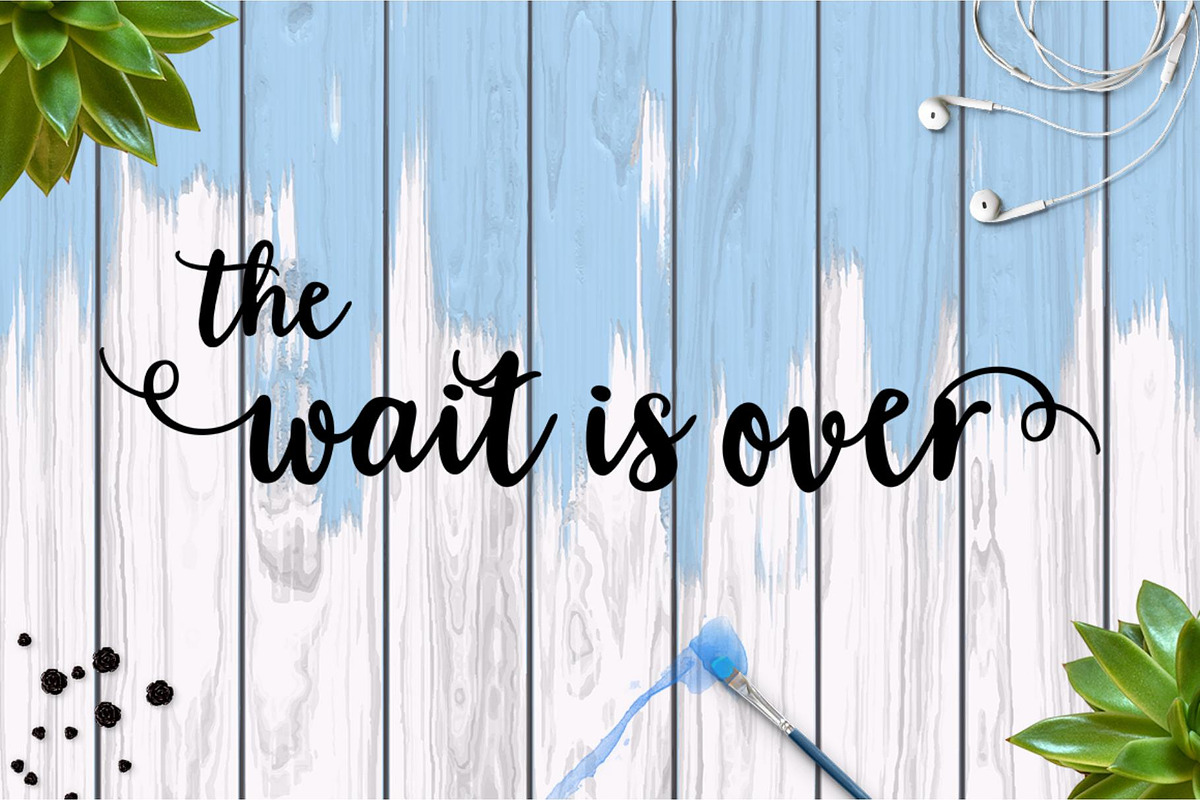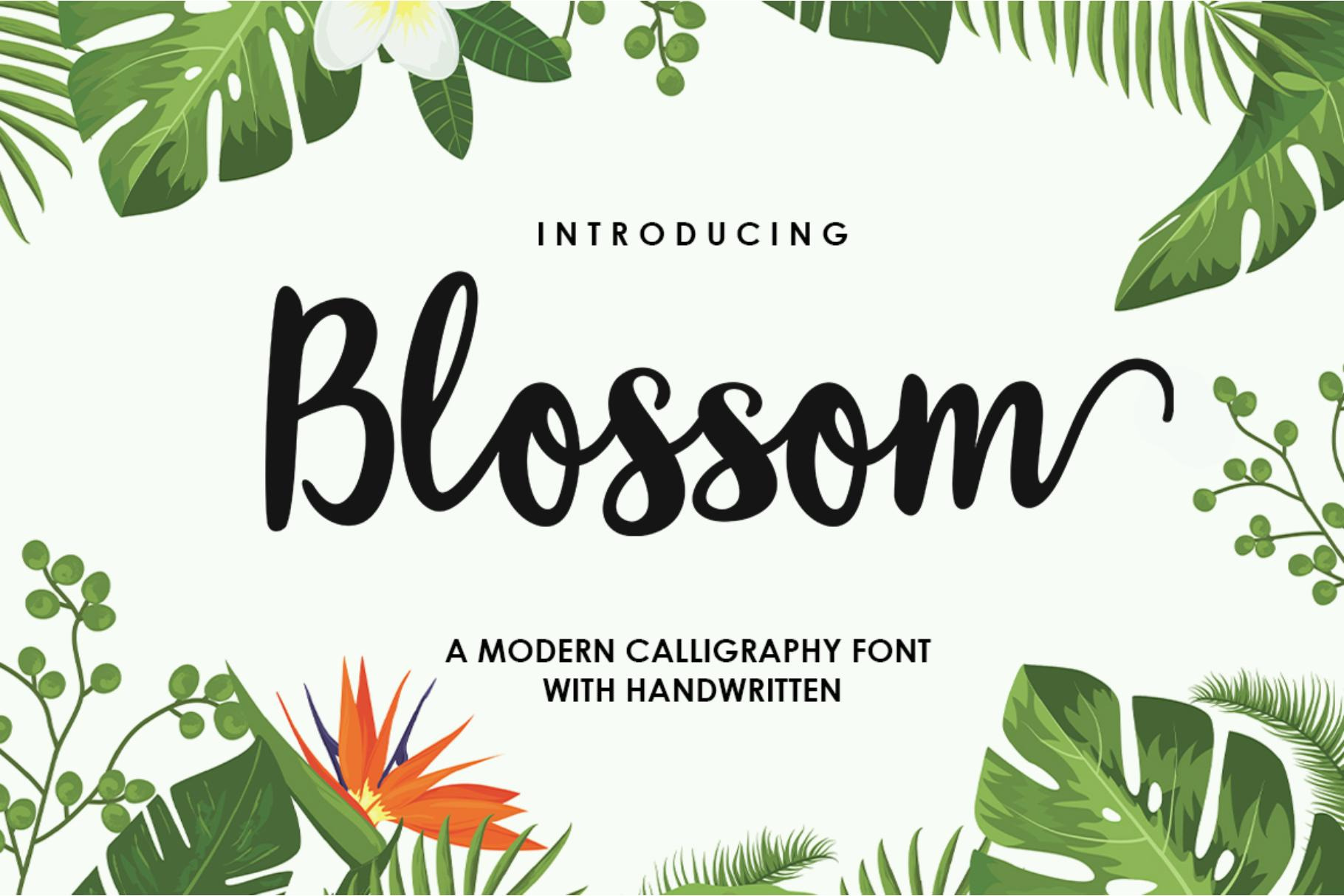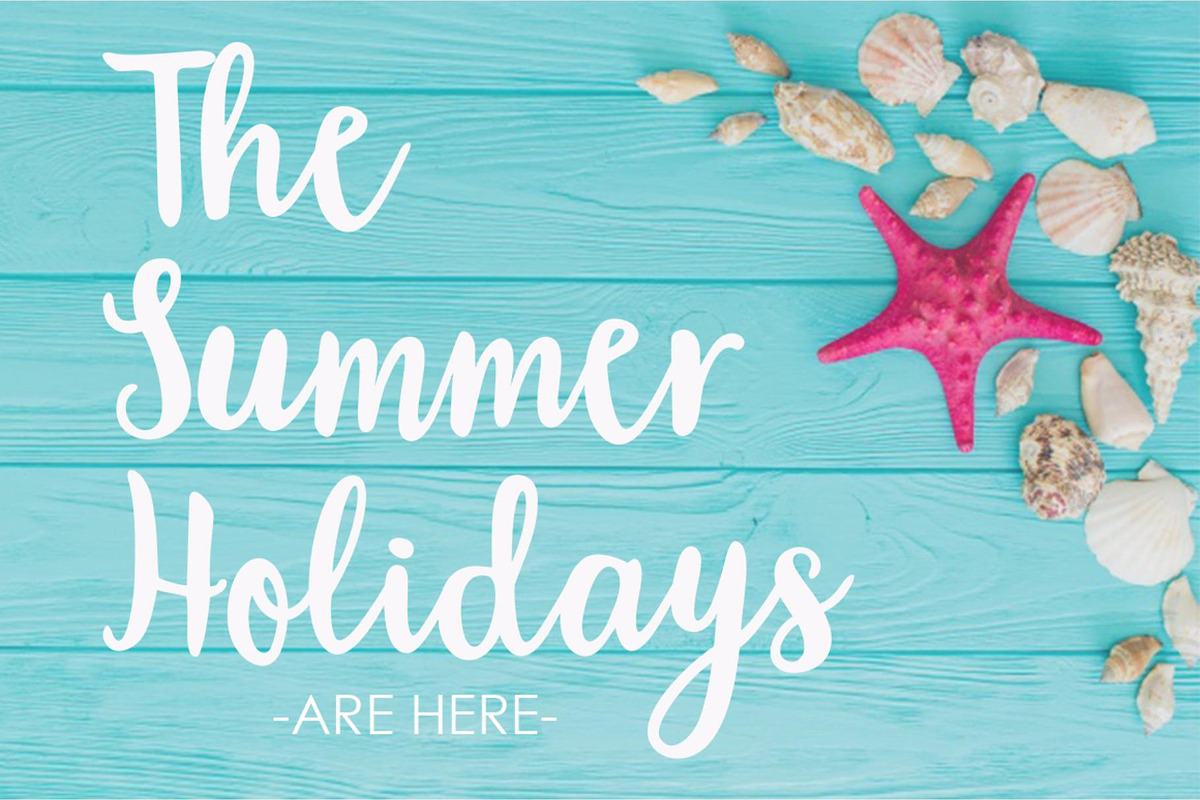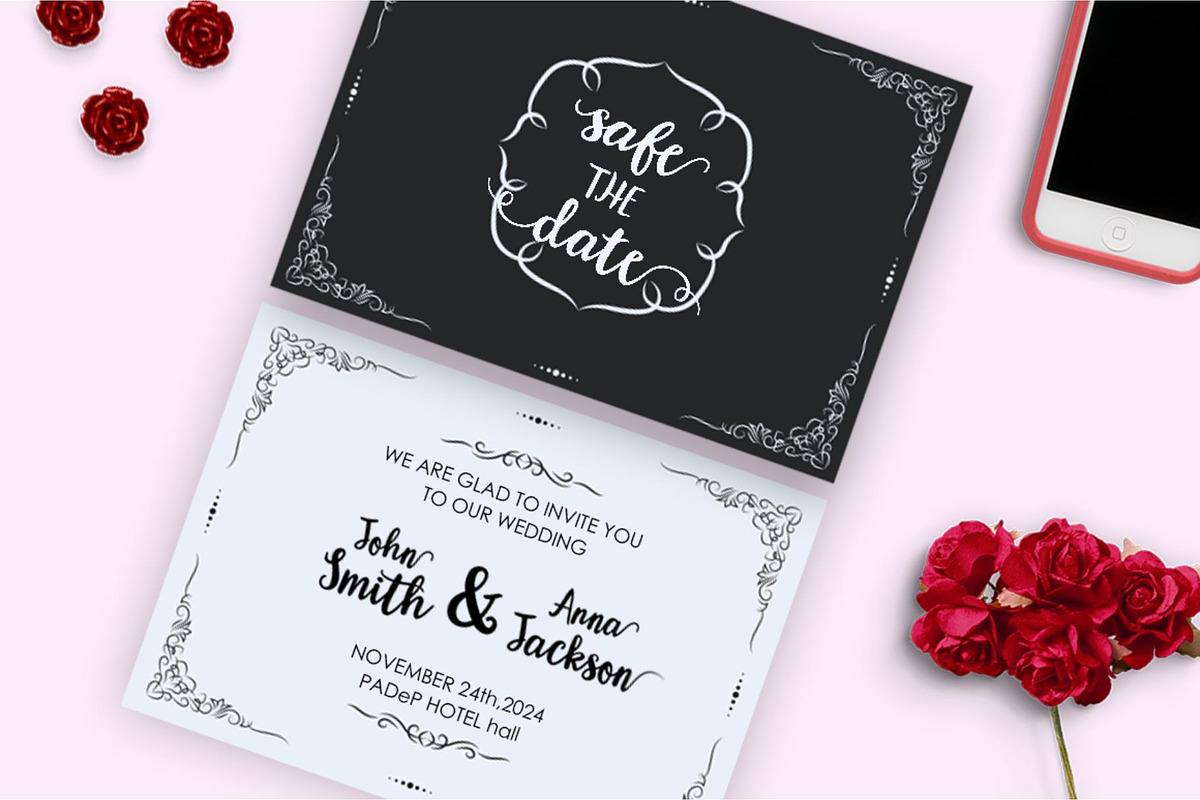
Blossom Script | Elegant Font
Blossom Script is a stylish handwritten script font featuring elegant curves, beautiful swashes, and modern calligraphy styling.
Designed to bring sophistication and personality to creative projects, this font is perfect for branding, invitations, packaging, and social media designs.
• Logo Design
• Luxury Branding
• Wedding Invitations
• Greeting Cards
• Product Packaging
• Social Media Graphics
• Beauty Branding
• Fashion Projects
• Business Cards
• Cricut & Silhouette Projects
• Uppercase & Lowercase Letters
• Numbers & Punctuation
• Beautiful Swashes
• Alternate Characters
• Multilingual Support
Blossom Script combines elegance and versatility, making it a perfect choice for branding, invitations, logos, and modern creative projects.